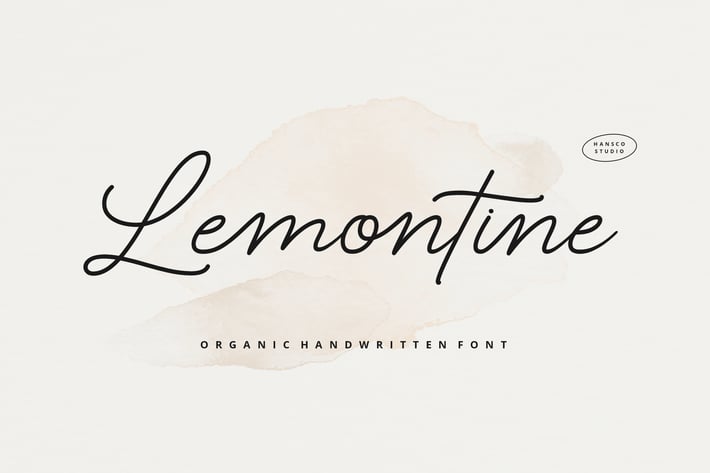
Lemontine Font
Lemontine Font is a natural and modern handwriting font carefully created with a touch of elegance. Whether you’re looking for fonts for Instagram or signature handwriting for DIY projects, this font will turn any creative idea into a true piece of art!. This font is perfect also for creating print templates like posters, branding, quotes, blog titles, fashion, invitations, greeting cards, business cards, stationery or anything else. Comes with a full uppercase, lowercase, numbers, punctuation and with extensive language support, it’s going to be a very usable addition to your project.
Number & Punctuation
Multilingual Supports
Alternate